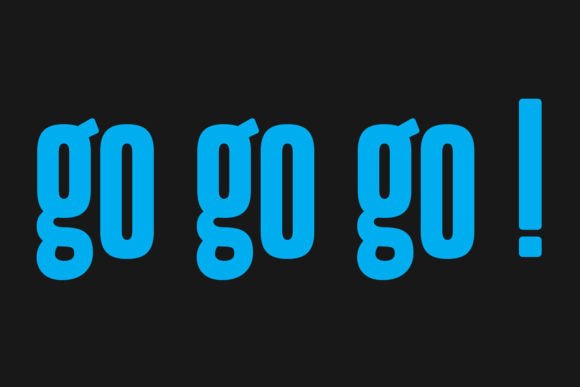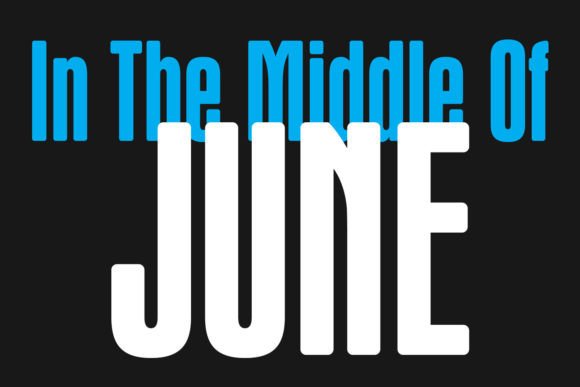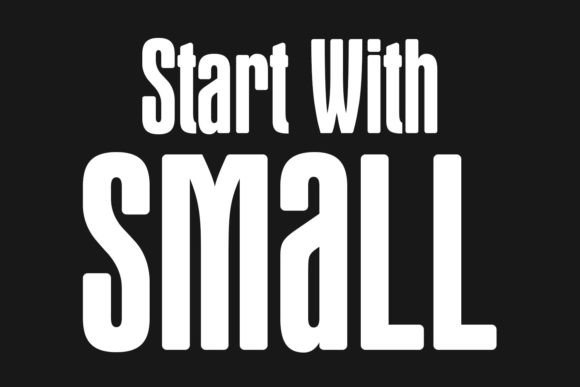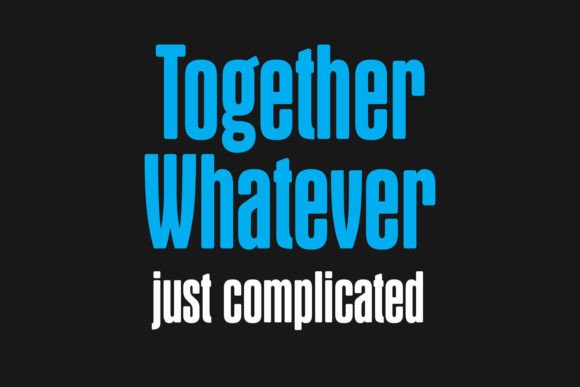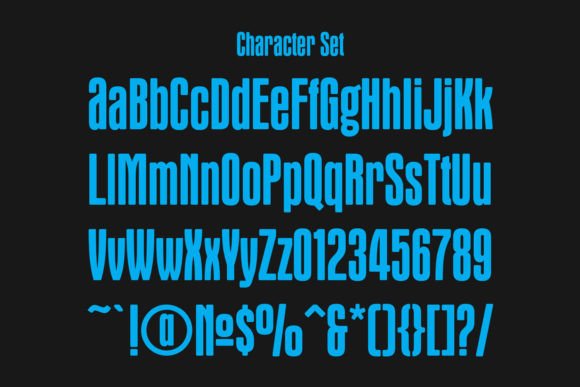
The Perfect Font for the Modern Designer
As you sit in front of your computer, staring at a blank screen, you know the feeling – you need a font that’s going to make your design pop. The words ‘sleek’, ‘modern’, and ‘sophisticated’ come to mind, and suddenly, you’re on a mission to find the perfect font.
Enter the “Arlego Font”, a stunning sans-serif design that’s sure to elevate your projects. With its condensed letterforms and clean lines, each character is crafted with precision and elegance. Whether you’re creating a headline, title, or eye-catching text, the Arlego Font is the perfect choice. Its versatility and sophistication make it a valuable asset for designers, allowing you to create visually stunning designs that leave a lasting impression.
Arlego Font Key Features
- Font Family: Arlego Font offers a range of font styles, including Regular, Italic, Bold, and Bold Italic.
- Unique Characteristics: Arlego Font features a unique blend of modern and classic design elements, with subtle flair and sophistication.
Arlego Font Review
Overall, I think Arlego Font is a great addition to any design library. ✨ It has a unique, modern feel that can add a touch of sophistication to any project. The font is highly customizable, allowing designers to adjust the weight, width, and even the ligatures to suit their needs.
The font’s versatility is one of its strongest points. ✨ It can be used for a wide range of applications, from headlines and titles to body text and even logotypes. The font’s clean lines and minimalist aesthetic make it an excellent choice for modern designs, and its large character set ensures that it can handle complex text.
- Unique, modern design
- Large character set
- Versatile and suitable for a wide range of applications
- ⚠️ Limited support for some languages and scripts
- ⚠️ Can be difficult to read at very small font sizes
In conclusion, I think Arlego Font is a solid choice for designers looking for a modern, versatile font. While it may have some limitations, its strengths far outweigh its weaknesses, making it a valuable addition to any design library.
Tips for Getting the Most Out of Arlego Font
For best results, use Arlego Font in combination with other clean and modern design elements. Experiment with different font sizes, colors, and styles to create visually appealing designs.
Arlego Font is suitable for a variety of design projects, including:
- Web design and user interface (UI) elements
- Print and digital advertising
Alternatives to Arlego Font
Raleway
Raleway is a sans-serif font with a modern and elegant feel. It is suitable for use in digital products, logos, and headings. Raleway is more formal than Arlego Font and has a more traditional look. It comes in multiple weights and has a wide range of languages supported.
Montserrat is a sans-serif font inspired by the urban environment of the city of Montserrat in Argentina. It is a versatile font suitable for use in digital products, logos, and headings. Montserrat is more geometric and modern than Arlego Font and has a more urban feel. It comes in multiple weights and has a wide range of languages supported.
Lato is a sans-serif font with a clean and modern design. It is suitable for use in digital products, logos, and headings. Lato is more minimalist than Arlego Font and has a more neutral look. It comes in multiple weights and has a wide range of languages supported.
Open Sans is a sans-serif font with a friendly and approachable feel. It is suitable for use in digital products, logos, and headings. Open Sans is more casual than Arlego Font and has a more modern look. It comes in multiple weights and has a wide range of languages supported.
Arlego Font Project Ideas